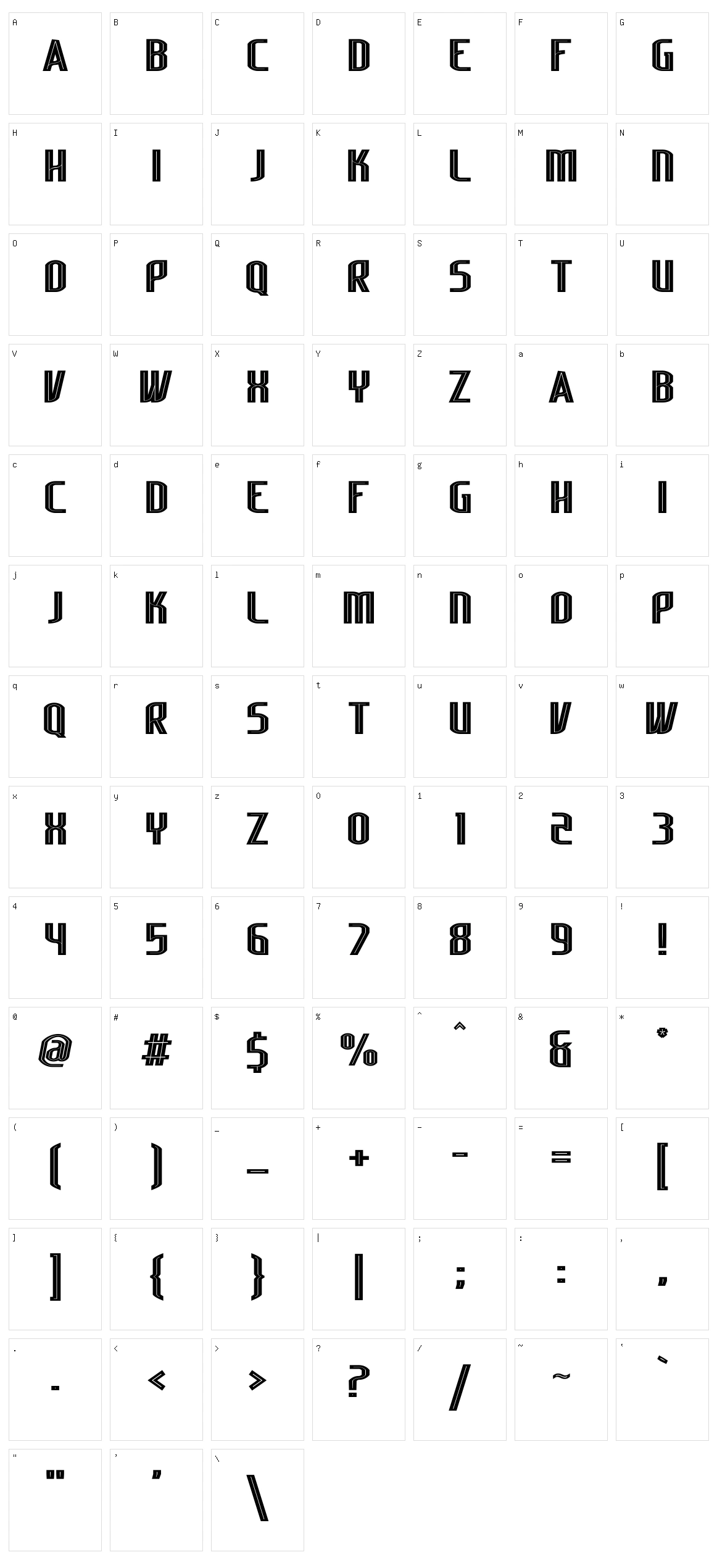
Lakisa is a gorgeous sans serif with a modern and futuristic feel! With its neat and balanced arrangement of letters, this typeface will look outstanding in both formal and non-formal designs.